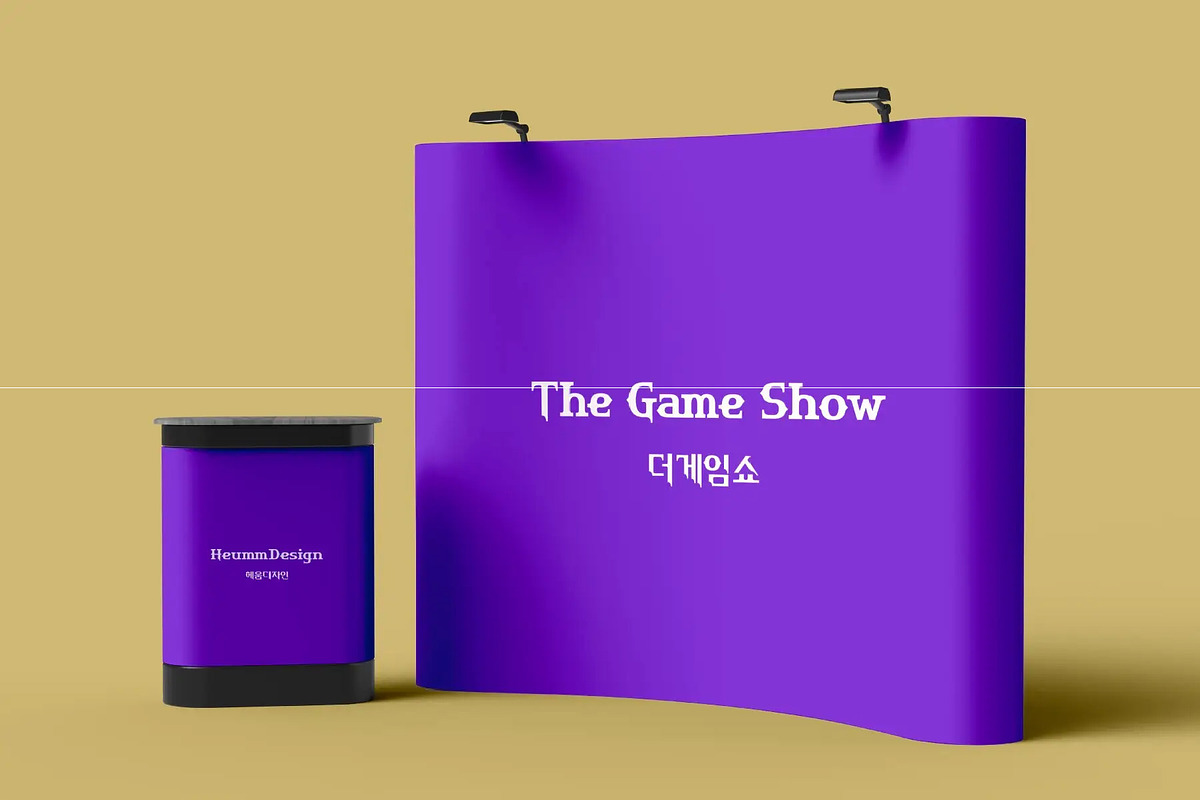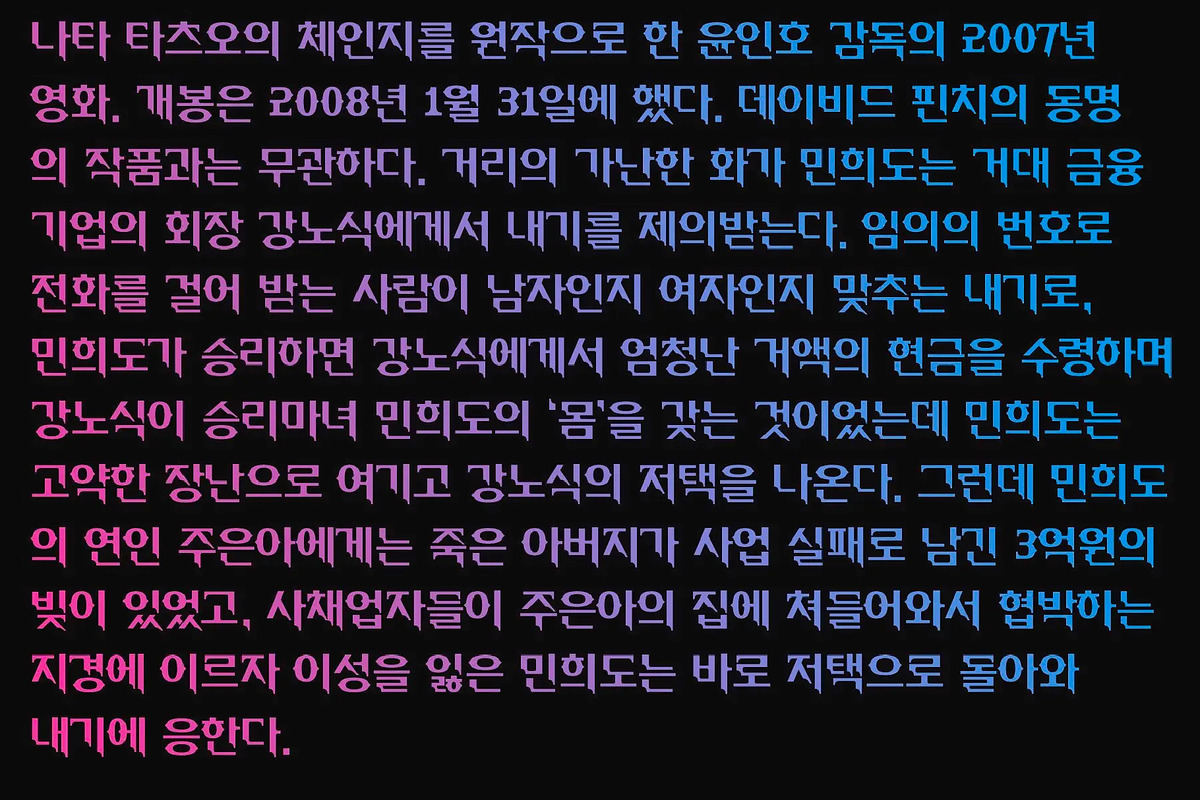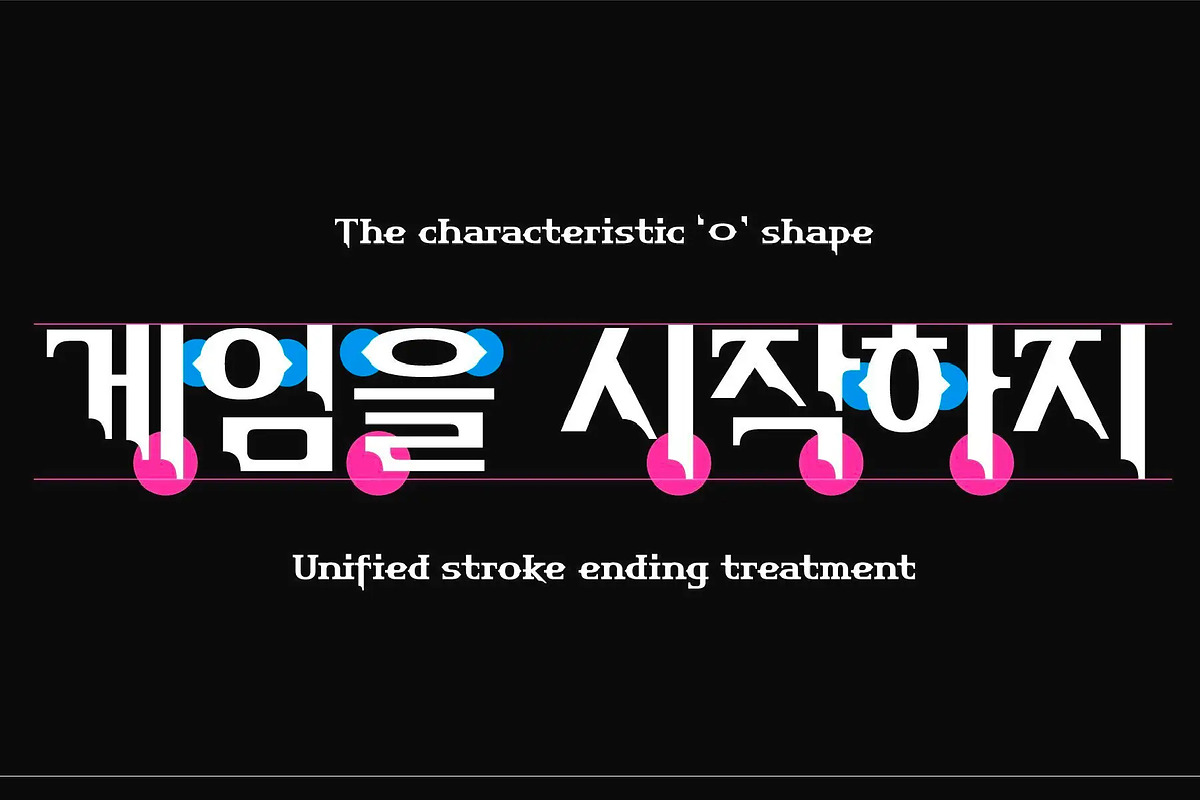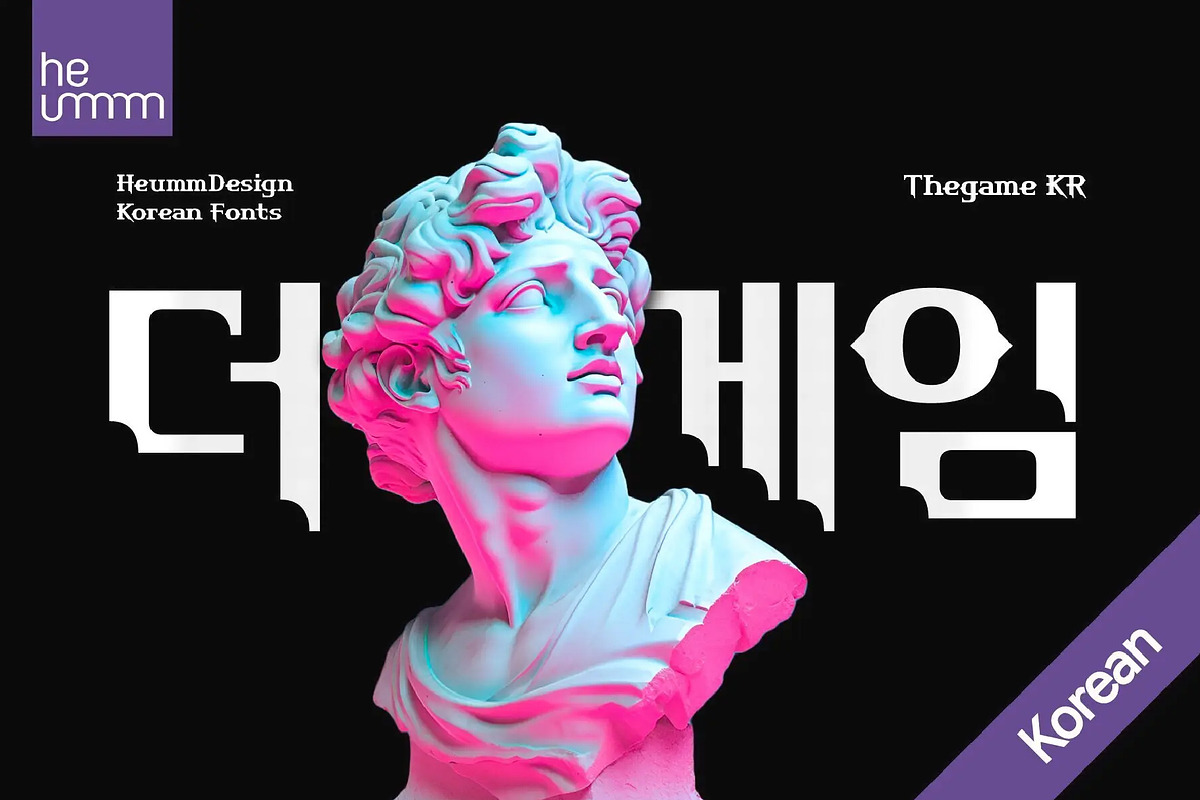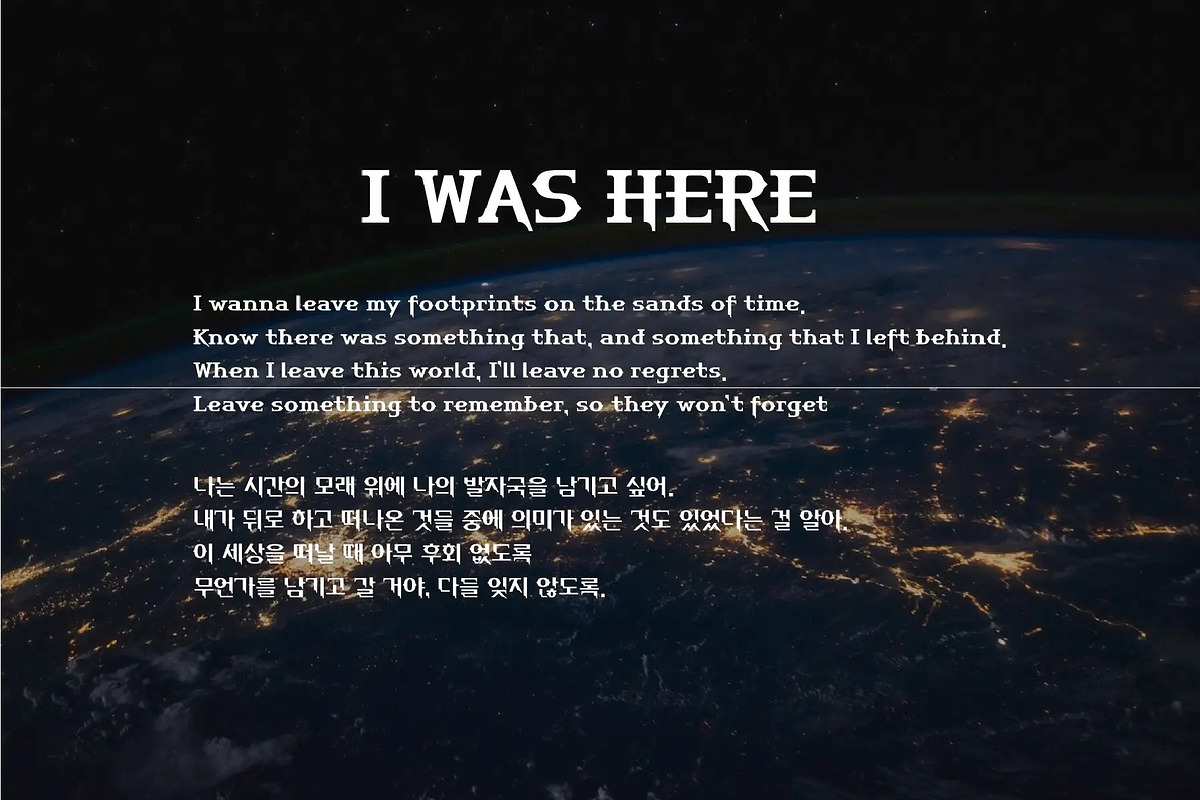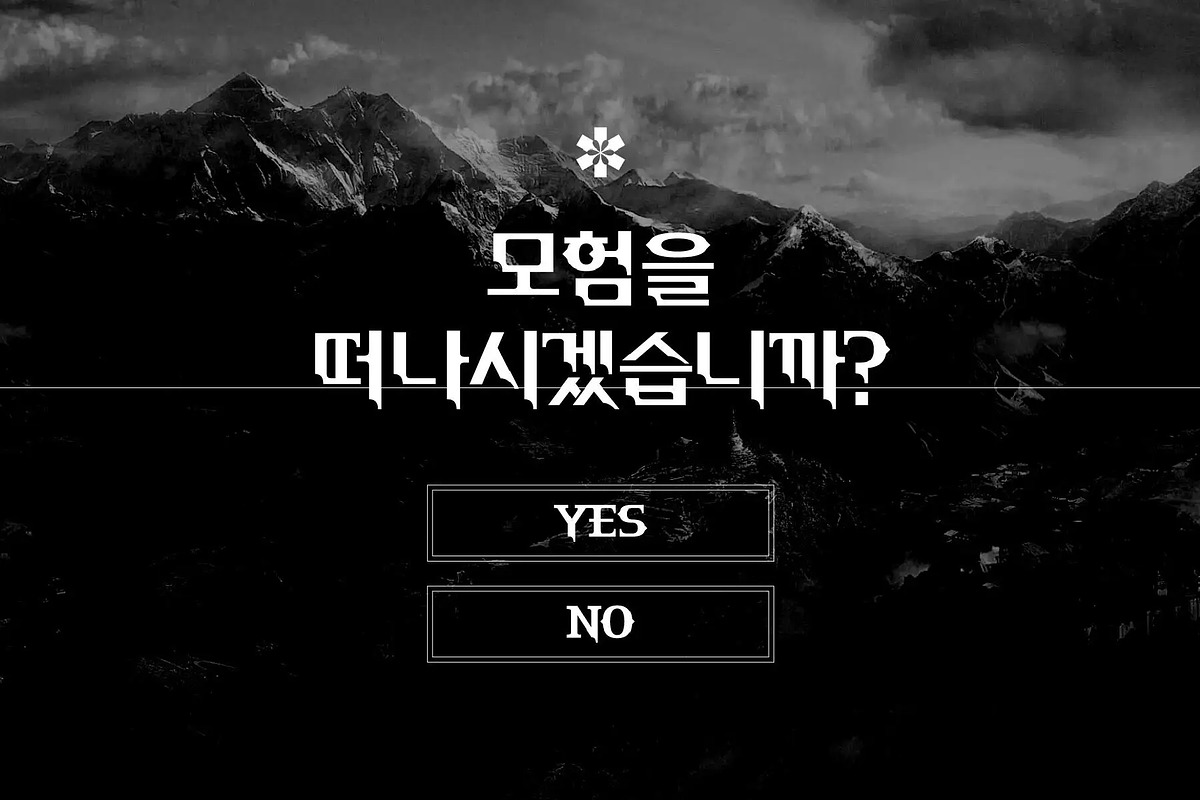
HU Thegame KR is a typeface appropriate for titles or headlines that need to be stressed out.
We got motif from cruel games and reflected scary and horrifying impression in it. The edge of strokes are sharp, which makes you remind of the design of Black Letter of Middle Age. It especially goes well with special festivals like Halloween, so it would be helpful for you to make any images related to them. It contains Hangul, Korean.
There is 1 weight of HU Thegame KR : Regular
- Multilanguage (Basic Latin, Western European, Euro, Catalan, Baltic, Turkish, Central European, Romanian, Pan African Latin, Dutch, Afrikaans, Basic Greek, Basic Cyrillic, Mathematical Operators)
- 12269 Glyphs